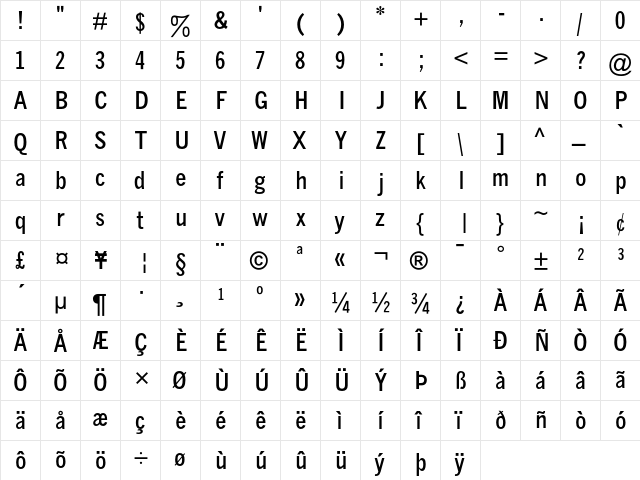
News Gothic Bold Condensed
Design Context for News Gothic Typeface
News Gothic has the quiet confidence of well-executed sans-serif typography: versatile, unobtrusive, and dependable at any size. Its bold stroke weight gives it real presence on the page. The condensed width makes it efficient for tight spaces without sacrificing legibility.
Well-suited to navigation labels, product packaging, and anywhere legibility at scale is essential.
Font Pairing: Use News Gothic for headlines alongside a lighter-weight sans or serif for body copy to establish clear visual hierarchy.
Pro Tip: Use News Gothic tightly set in headlines and banners — its condensed proportions make it ideal for maximum impact in minimum horizontal space.